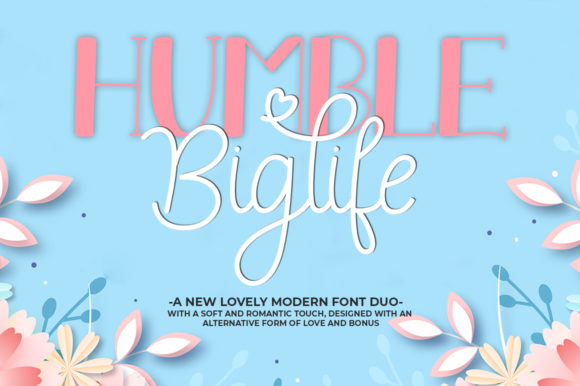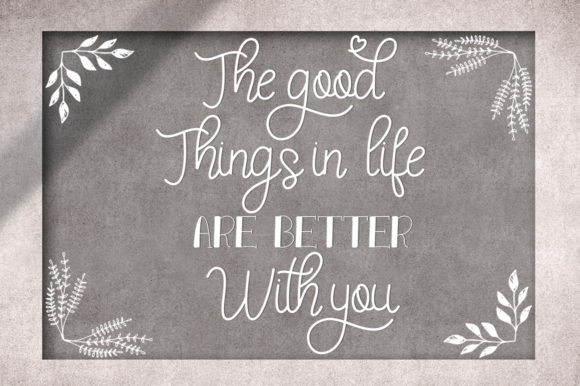
Humble Biglife Duo Font
Humble Biglife duo is a contemporary and sophisticated handwritten font. This is a beautiful combination of a cute script font and a whimsical serif font. Fall in love with its authentic feel and use it to create gorgeous wedding invitations, beautiful stationary art, eye-catching social media posts, and cute greeting cards.
This font is PUA encoded which means you can access all of the heart-themed glyphs and swashes with ease! It also features a wealth of special features including alternate glyphs and ligatures.